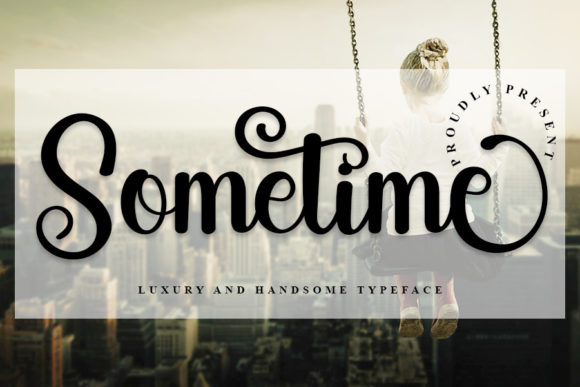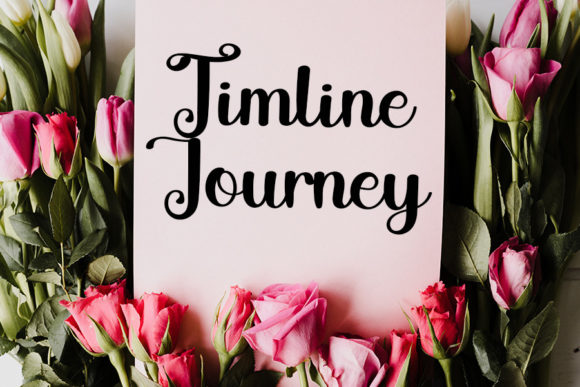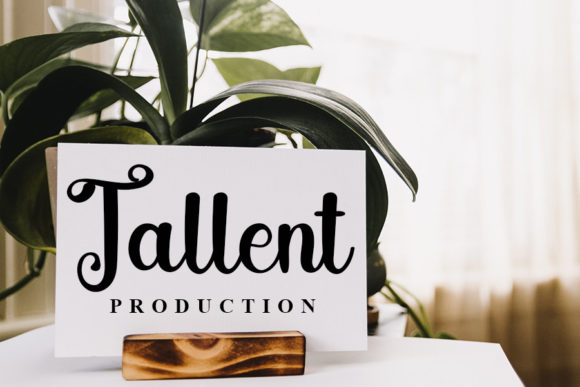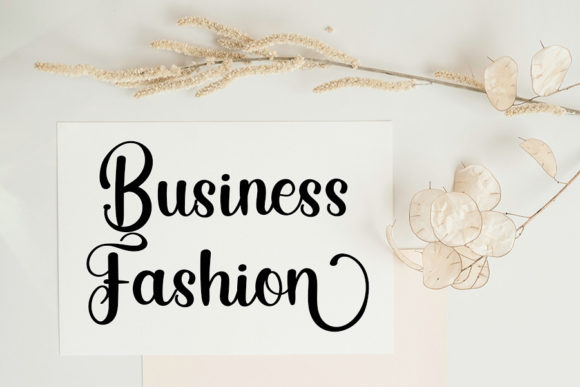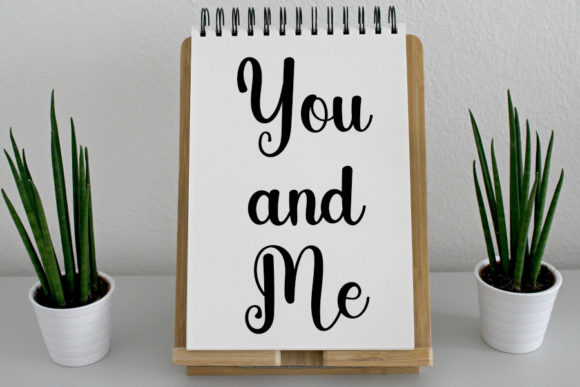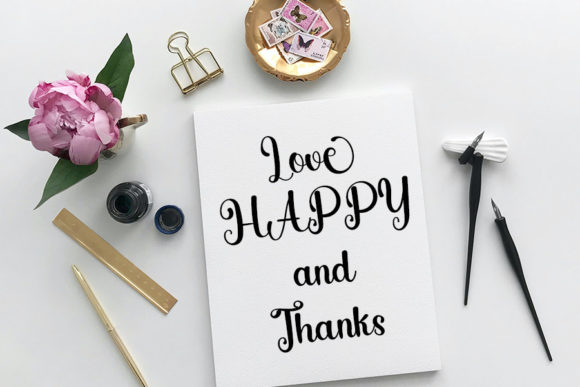
Sometime Font
About Sometime Font
Sometime is a beautiful and refined script font. It has a classy, elegant and modern look that can be used for logos, branding, invitations, stationery, wedding designs, social media posts, and much more!